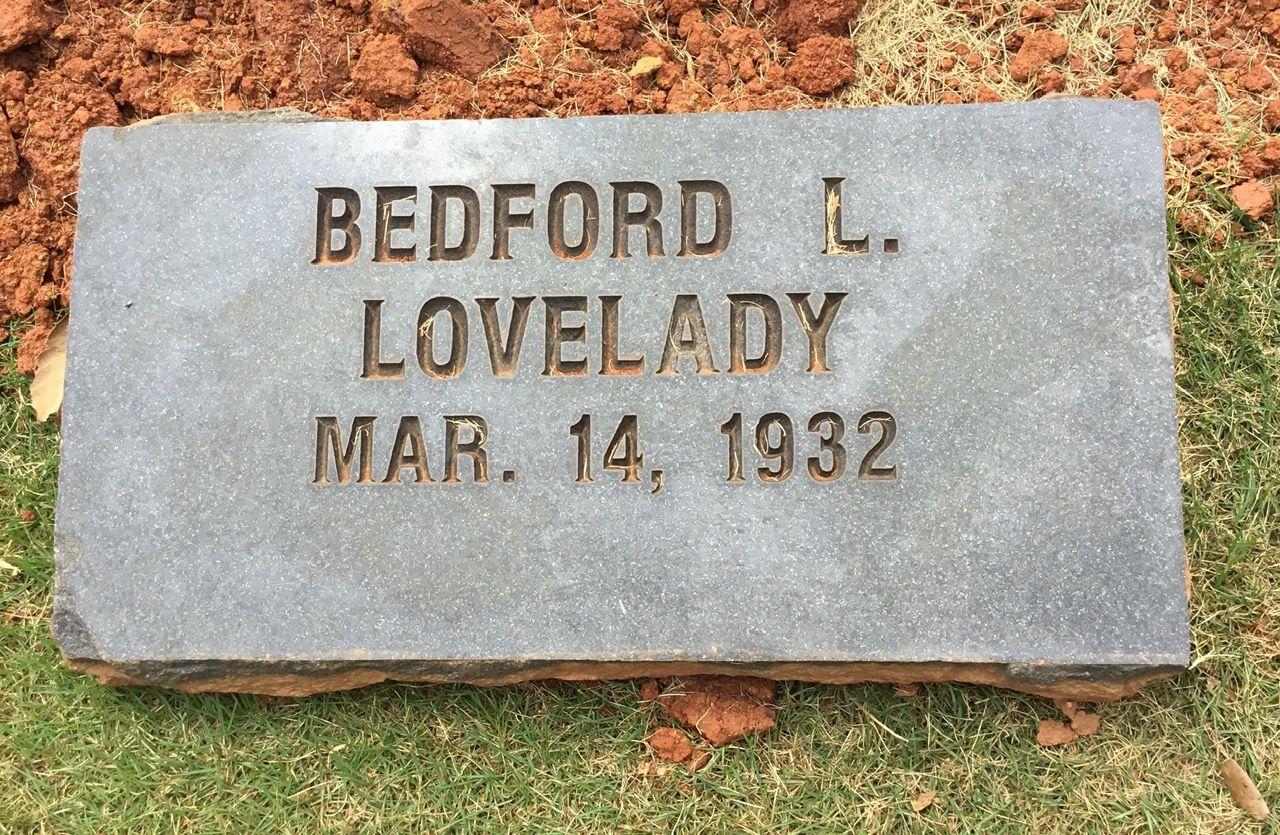
Hello, this is a pretty interesting one. This is Helvetica Condensed, but with serifs added by the stencil cutter. It was the shape of those numbers that gave it away, and then I noticed the shape of the unmistakeable Helvetica ‘R’ as well. I’ve definitely never seen anyone do this before. Looks like they slightly modified the top of the 1 as well.